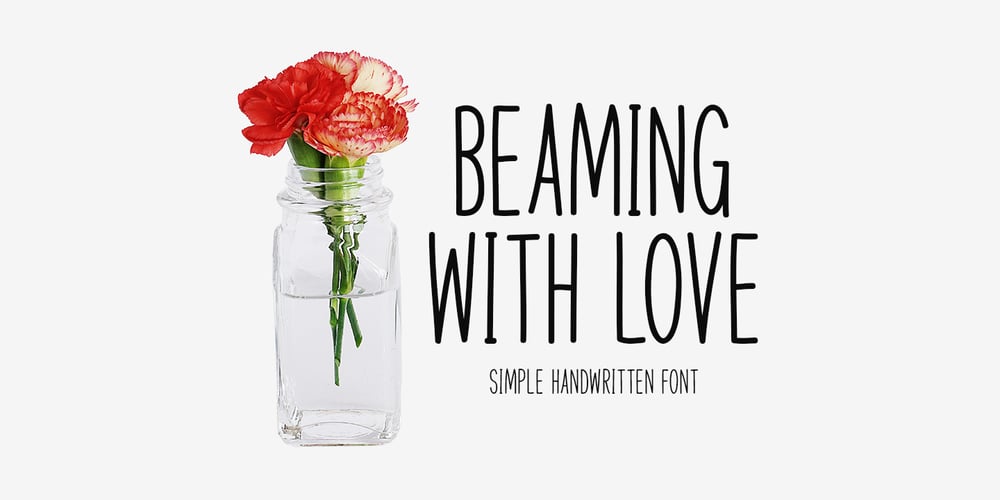
Beaming With Love
Beaming With Love font
Beaming With Love Font Family was designed by Md Shohail Bhuian and published by Seemly Fonts. Beaming With Love contains 1 styles and family package options. Explore the elegance of Beaming With Love, a straightforward handwritten typeface that radiates charm and grace. With its versatility, this typeface may be used for a wide range of projects, such as stationery, clothing, and promotional items. Its elegant touch elevates any design. The subtle lines and elegant appearance of Beaming With Love lend refinement and flair to any design, be it a logo, flyer, or picture frame. With this classic and adaptable typeface, you can unleash your creative side.